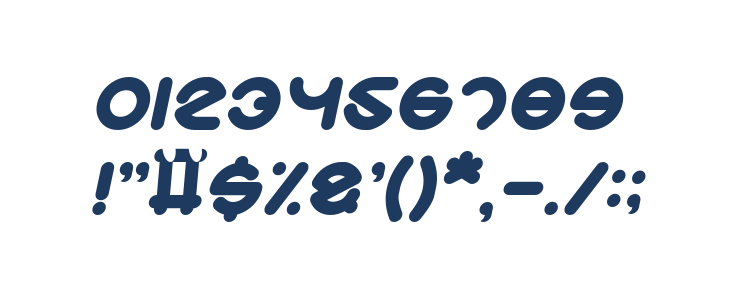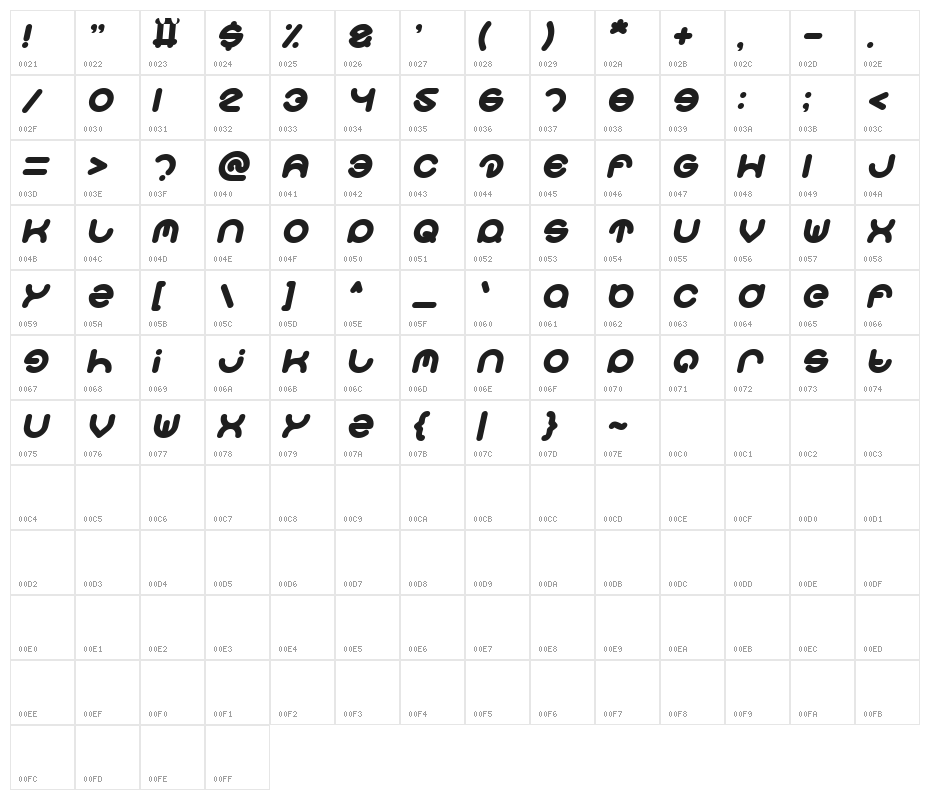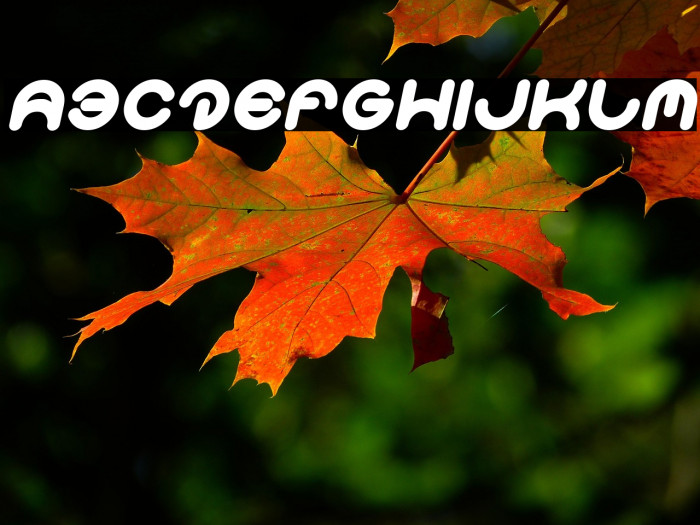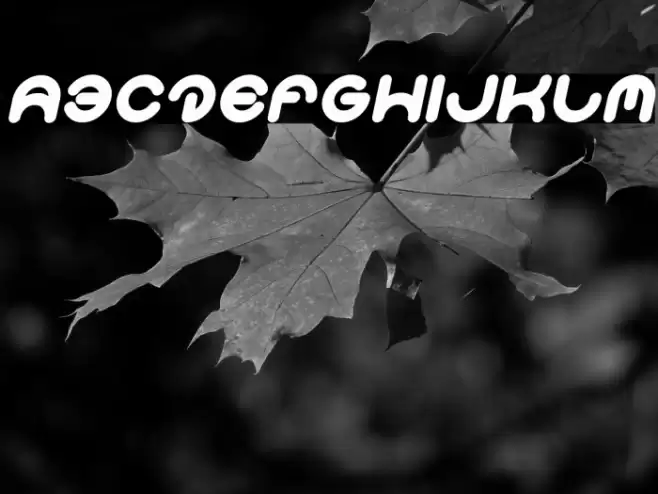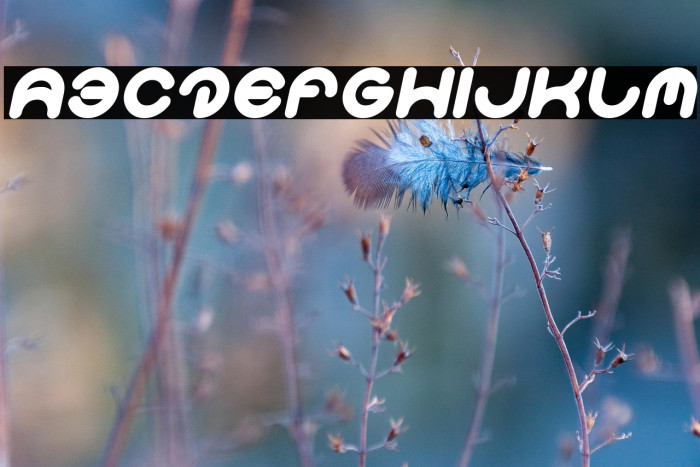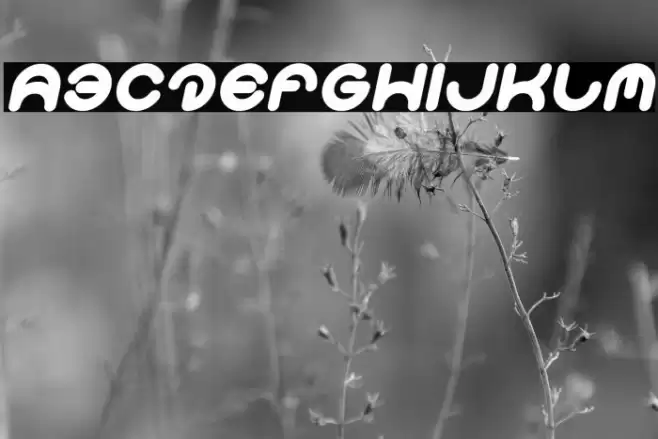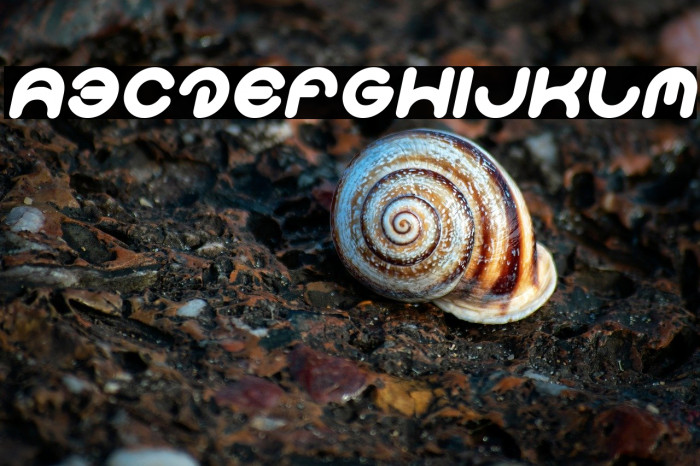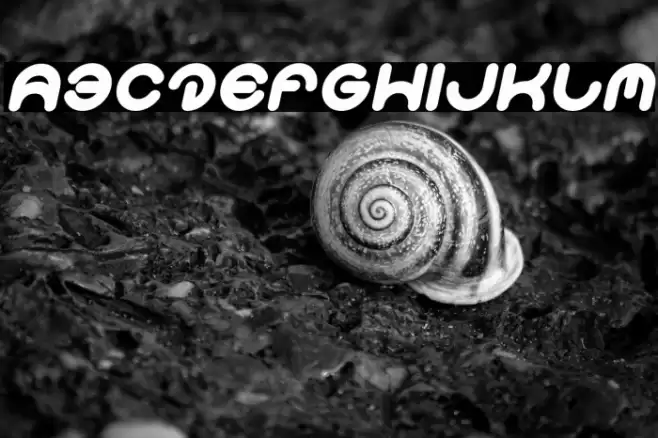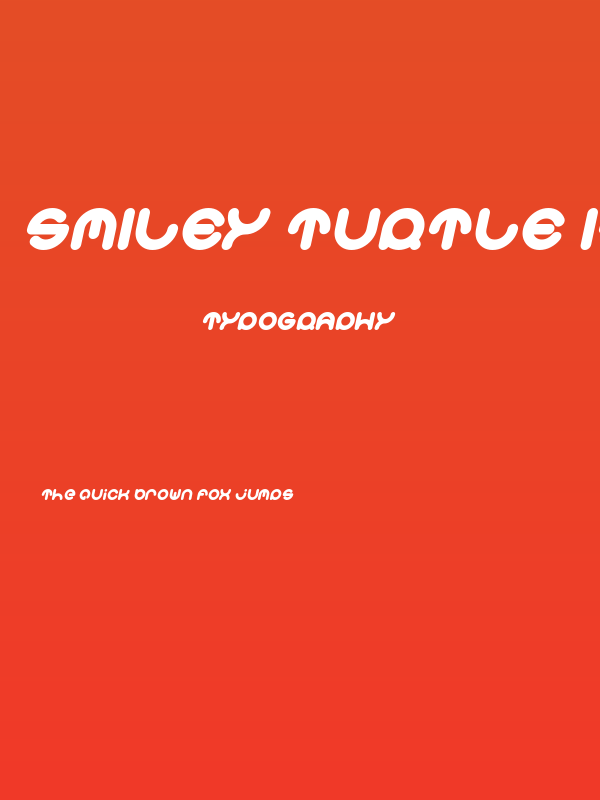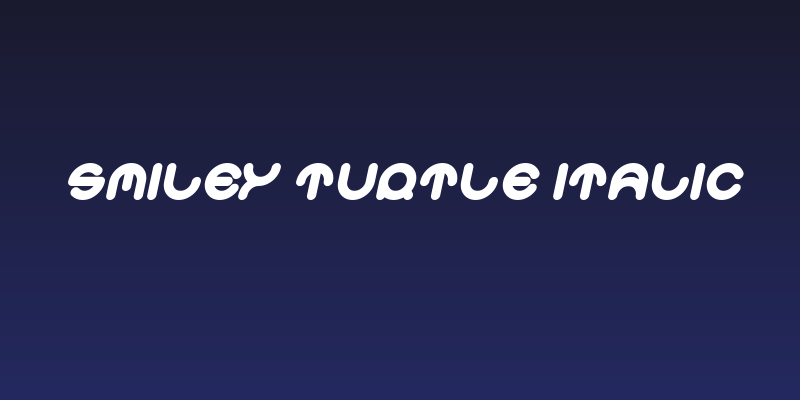
Smiley Turtle Italic Font
Smiley Turtle Italic Description
This playful and bold font features rounded, bubbly characters that convey a sense of fun and whimsy. The letters have a consistent thickness, creating a uniform appearance that is both approachable and modern. The italic style adds a dynamic and energetic feel, making it suitable for creative and informal designs. The font includes a full set of uppercase and lowercase letters, numbers, and a variety of special characters, ensuring versatility in its application. Its unique style is perfect for projects that require a touch of personality and flair.
| Overall Style | Playful, Modern |